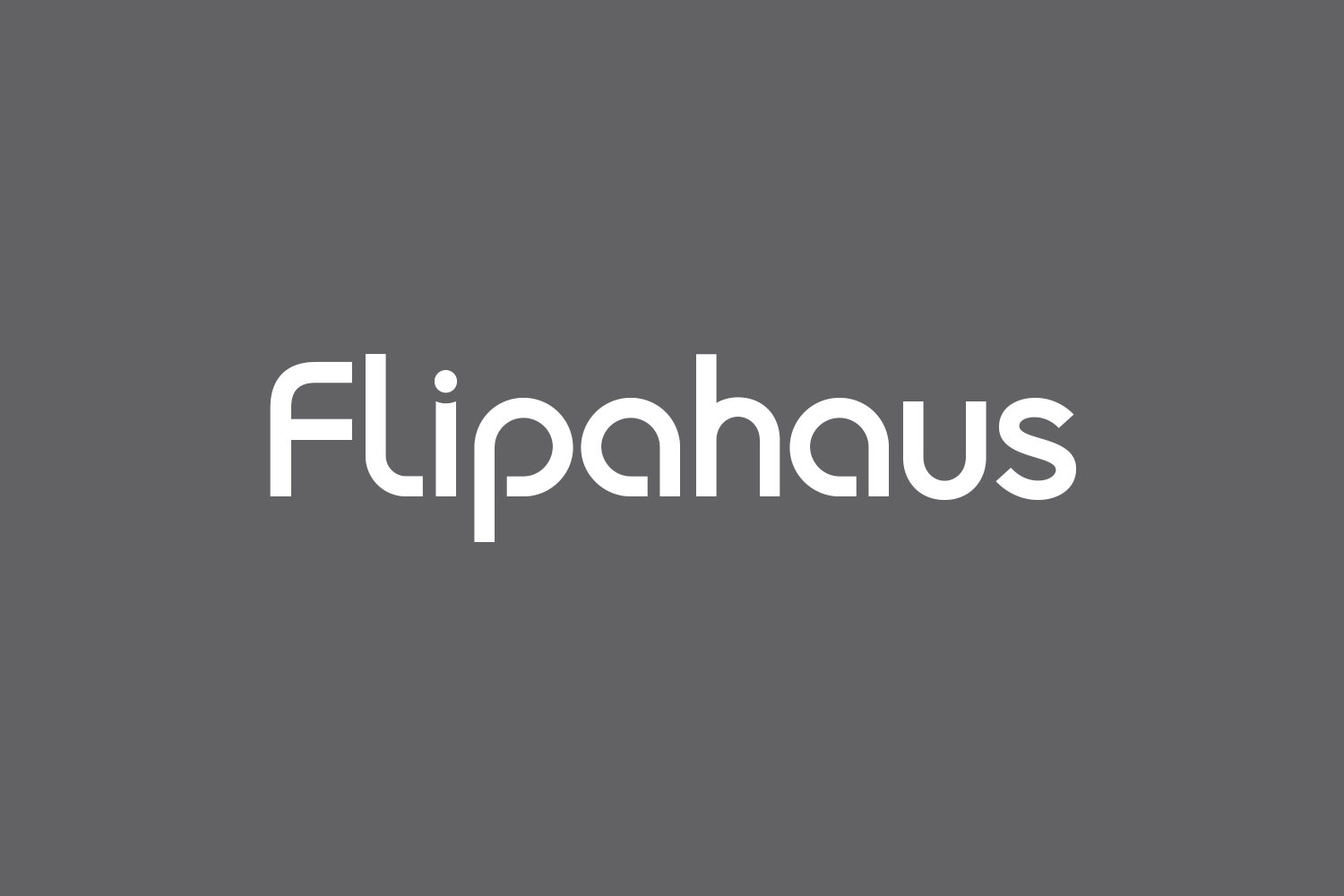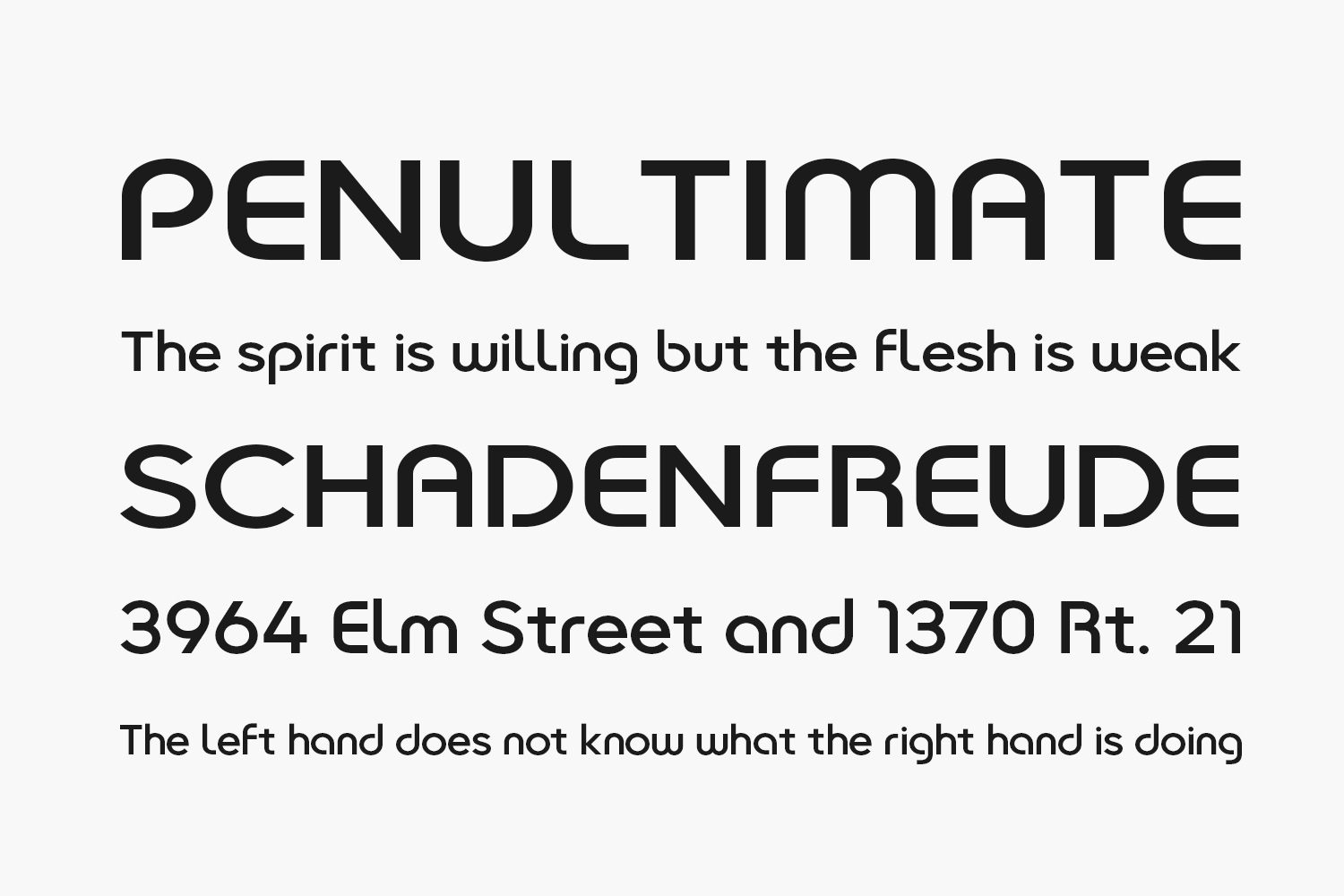
Flipahaus Free Font based on a logo of a discontinued camera product. Download the font for free if you need it for personal use or purchase the full version for commercial use.
Designed by LyonsType